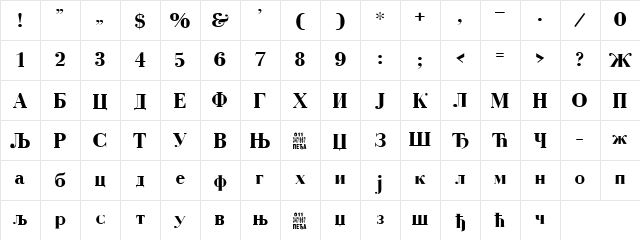
C_Bodoni Bold Free Font
C_Bodoni Bold
C_Bodoni Family
Complete C_Bodoni Bold glyph index. Displaying only characters natively supported by C_Bodoni Bold font.
Design Context for C_Bodoni
C_Bodoni is a composed and adaptable typeface that performs quietly and consistently across a wide range of design contexts. Its bold stroke weight gives it real presence on the page.